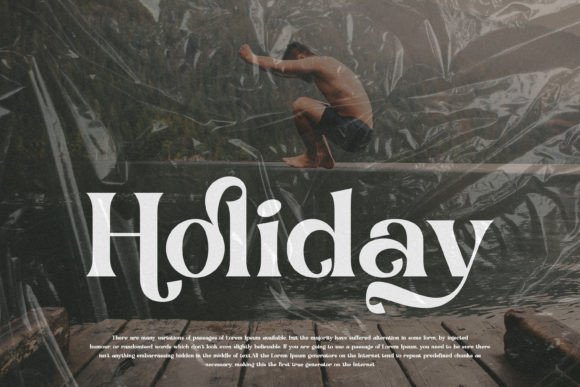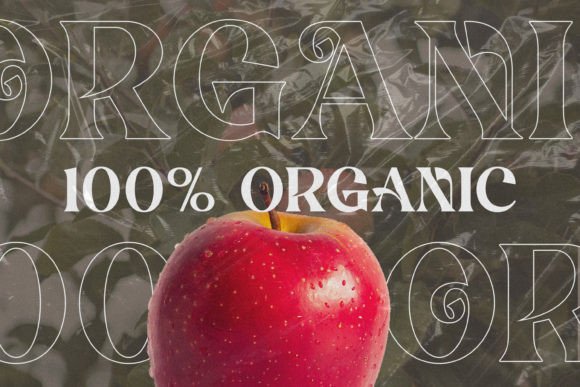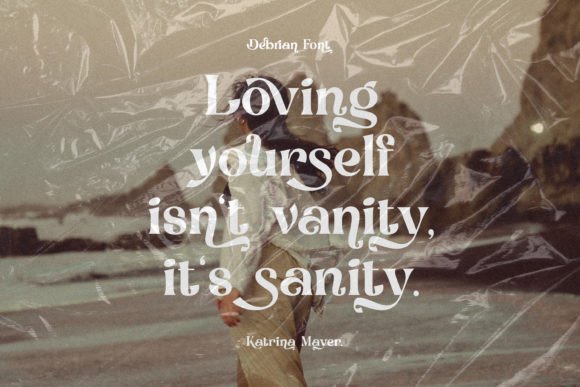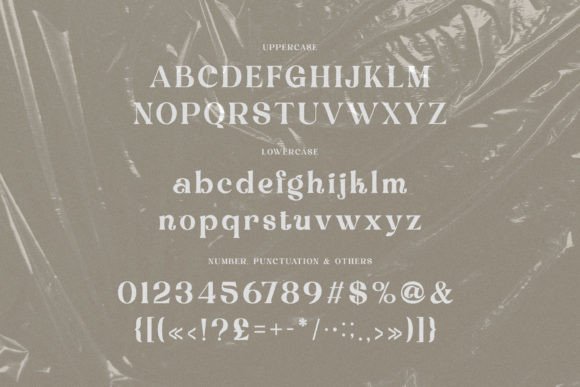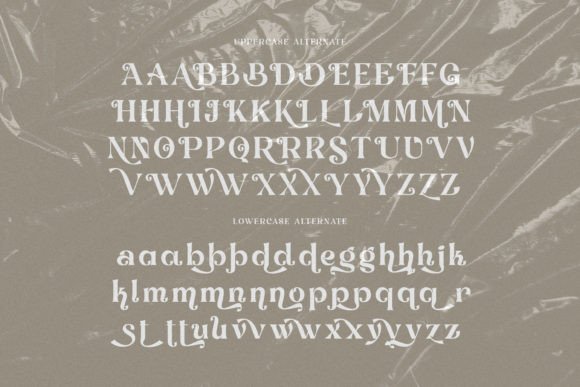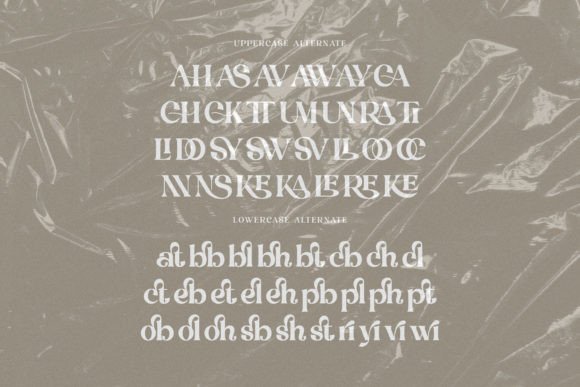
Introducing Debrian Font: Elevate Your Designs with Sophistication and Elegance
In the world of typography, a font can make or break a design. When it comes to creating a luxurious and high-end feel, the right font is essential. That’s where Debrian Font comes in – a sophisticated and refined serif font that exudes timeless style and classic charm. In this article, we’ll dive into the world of Debrian Font, exploring its features, benefits, and uses, and why it’s the perfect choice for designers and crafters looking to elevate their designs.
The Debrian Font Difference: Clean Lines, Elegant Curves, and Perfect Balance
Debrian Font is a masterclass in typographic design. Its clean, straight lines and elegant curves create a sense of balance and harmony, making it perfect for high-end fashion or luxury branding. The subtle variations in stroke weight add a touch of sophistication, while the serifs bring a classic charm that’s hard to resist. Whether you’re designing a logo, brochure, or website, Debrian Font is the perfect choice for creating a lasting impression.
PUA Encoding: Easy Access to Glyphs and Ligatures
One of the standout features of Debrian Font is its PUA (Private Use Area) encoding. This means that you can access all the glyphs and ligatures with ease, giving you complete creative control over your designs. No more tedious font editing or complicated workarounds – with Debrian Font, you can focus on what matters most: creating stunning designs that captivate your audience.
Perfect for High-End Fashion and Luxury Branding
Debrian Font is specifically designed with high-end fashion and luxury branding in mind. Its sophisticated and refined aesthetic makes it perfect for:
- Fashion logos and branding
- Luxury packaging and labeling
- High-end website design
- Brochures and catalogs
Whether you’re designing for a fashion brand, luxury hotel, or high-end jewelry company, Debrian Font is the perfect choice for creating a sophisticated and stylish visual identity.
Why Choose Debrian Font?
So why choose Debrian Font over other serif fonts on the market? Here are just a few reasons:
- Unique and distinctive aesthetic: Debrian Font has a one-of-a-kind look that sets it apart from other serif fonts.
- Highly versatile: Debrian Font can be used for a wide range of design projects, from logos and branding to website design and advertising.
- Easy to use: With PUA encoding, you can access all the glyphs and ligatures with ease, making it simple to create stunning designs.
- Timeless appeal: Debrian Font has a classic charm that will never go out of style, ensuring your designs remain timeless and sophisticated.
Tips and Tricks for Using Debrian Font
To get the most out of Debrian Font, here are a few tips and tricks to keep in mind:
- Experiment with font sizes: Debrian Font looks stunning in a range of font sizes, from large headlines to smaller body text.
- Play with color: Debrian Font pairs perfectly with a range of colors, from rich jewel tones to metallic silvers and golds.
- Mix and match: Try pairing Debrian Font with other fonts to create a unique and eye-catching visual identity.
In conclusion, Debrian Font is a sophisticated and refined serif font that’s perfect for designers and crafters looking to elevate their designs. With its clean lines, elegant curves, and perfect balance, Debrian Font exudes a timeless and stylish appeal that’s hard to resist. Whether you’re designing for high-end fashion or luxury branding, Debrian Font is the perfect choice for creating a lasting impression. So why wait? Try Debrian Font today and take your designs to the next level!